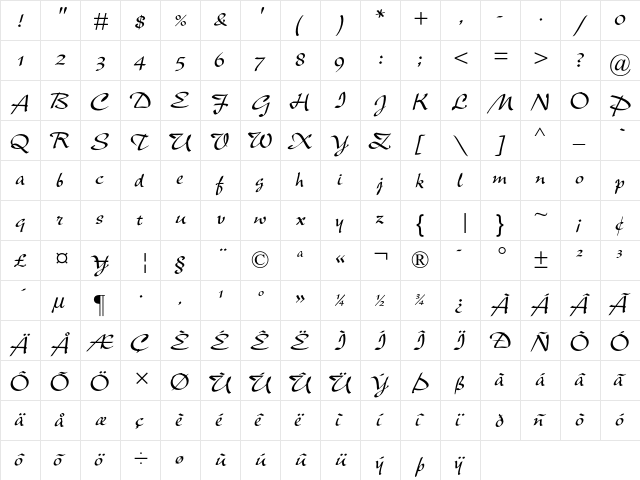
New Berolina Regular
Design Context for New Berolina Typeface
New Berolina is a composed and adaptable typeface that performs quietly and consistently across a wide range of design contexts.